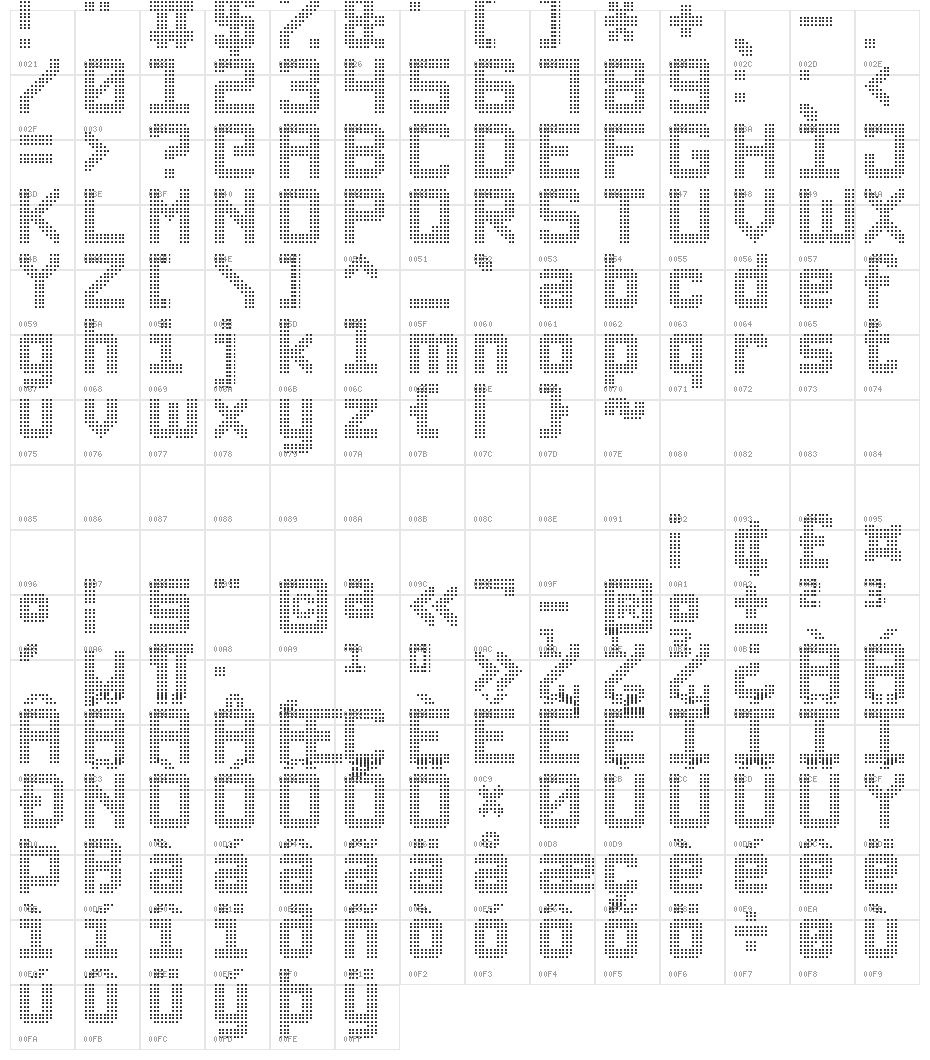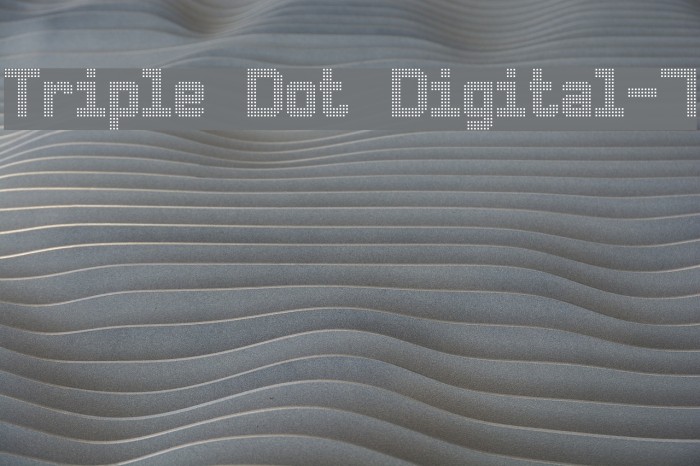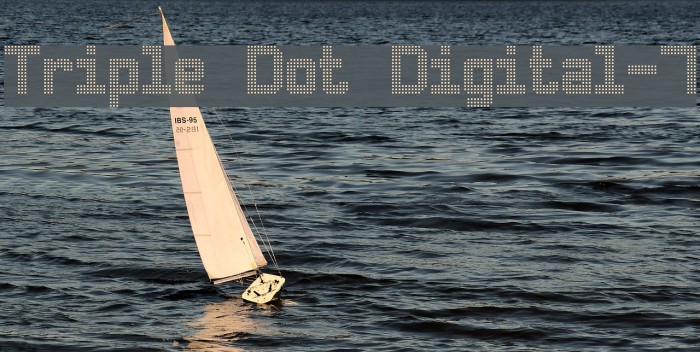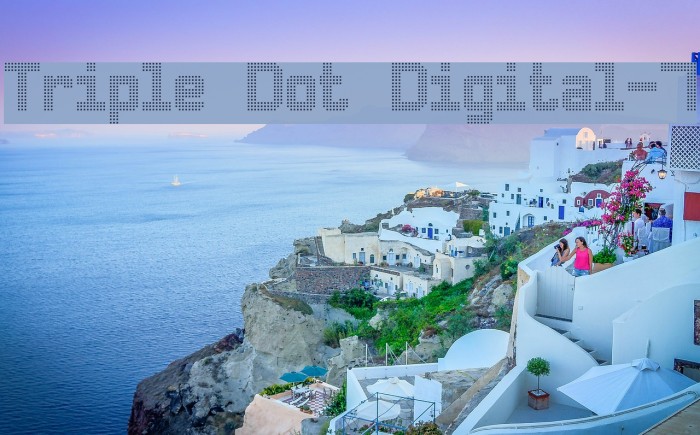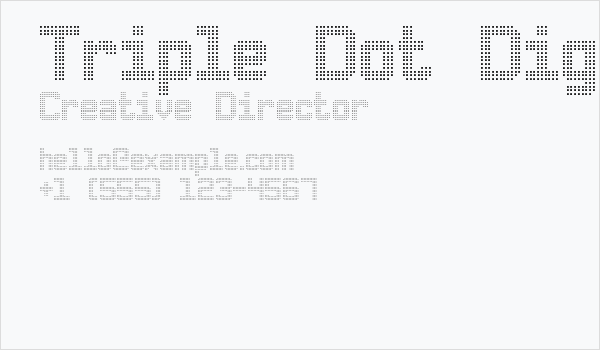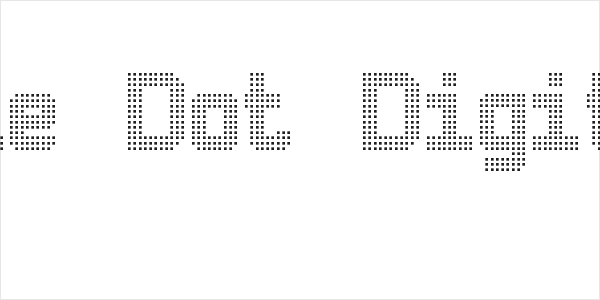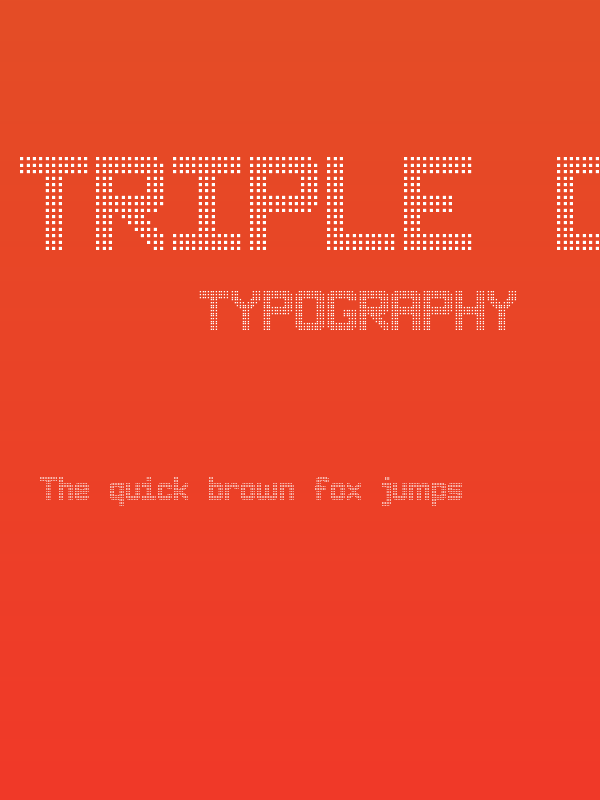
Triple Dot Digital-7 Font
Triple Dot Digital-7 Description
This font features a unique digital dot matrix style, reminiscent of old digital displays and electronic devices. Each character is constructed from a grid of small, evenly spaced dots, creating a pixelated effect that is both retro and modern. The uppercase and lowercase letters maintain a consistent height, with clear differentiation between each character. Numbers and special characters are also designed with the same dot matrix pattern, ensuring uniformity across the entire typeface. This font's distinct style makes it ideal for projects that require a digital or technological aesthetic.
| Use Case | Headlines, Logos, Digital displays |
| Proposed Projects | Ideal for digital displays, retro-themed designs, tech branding, and electronic device interfaces. |